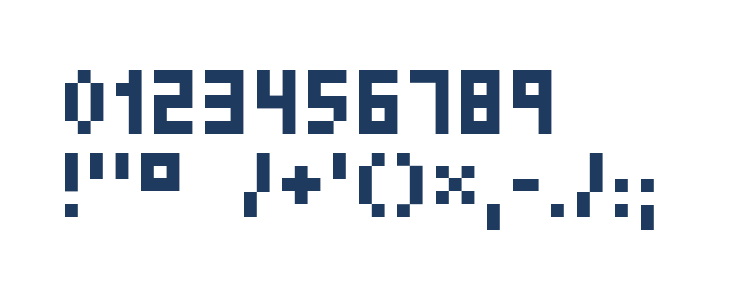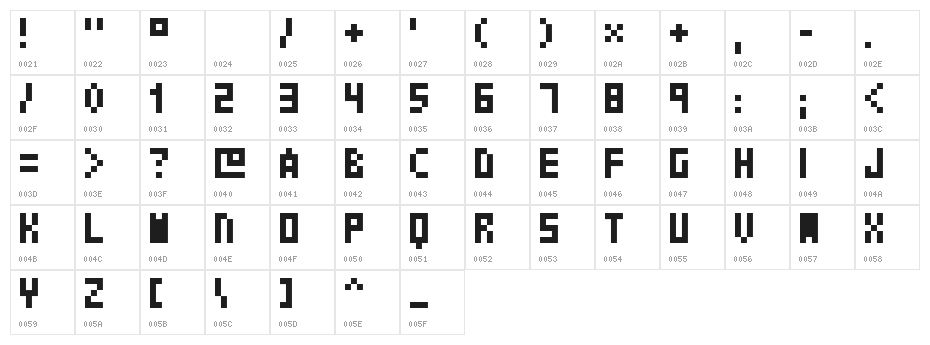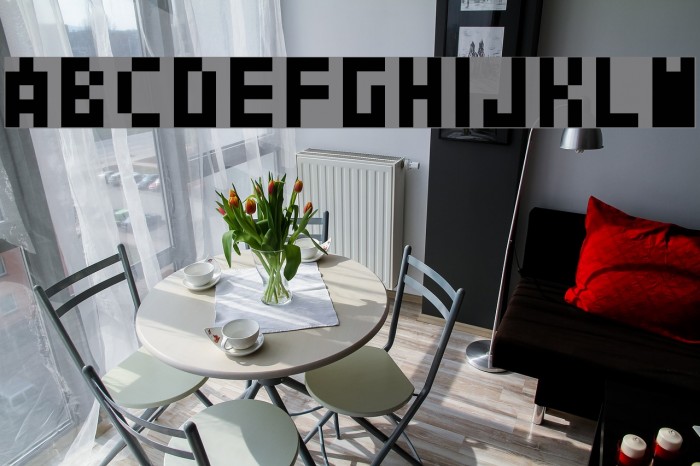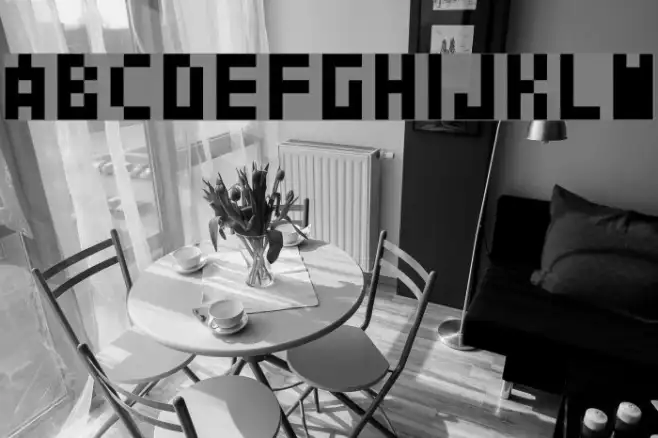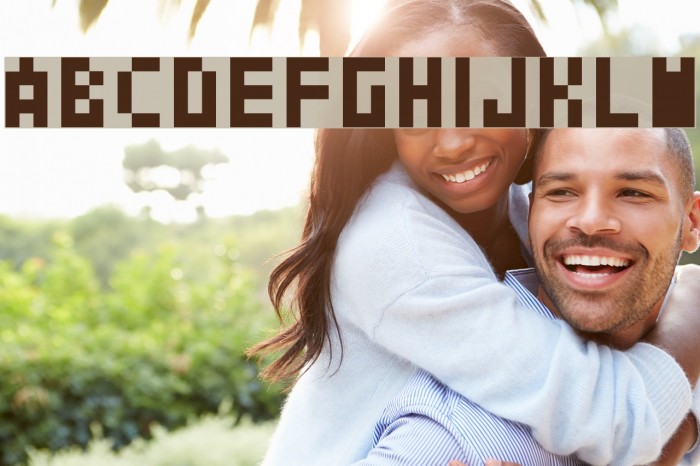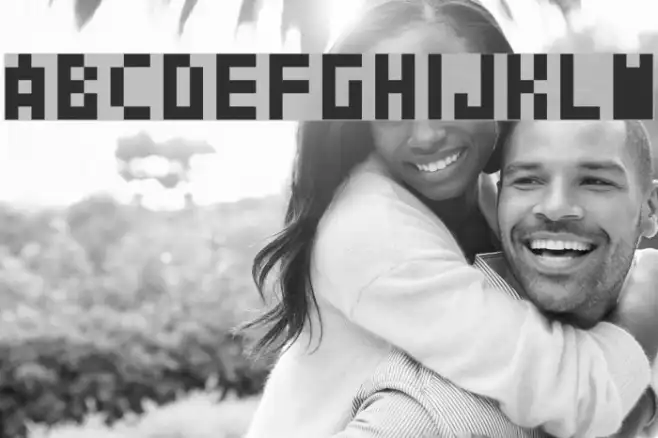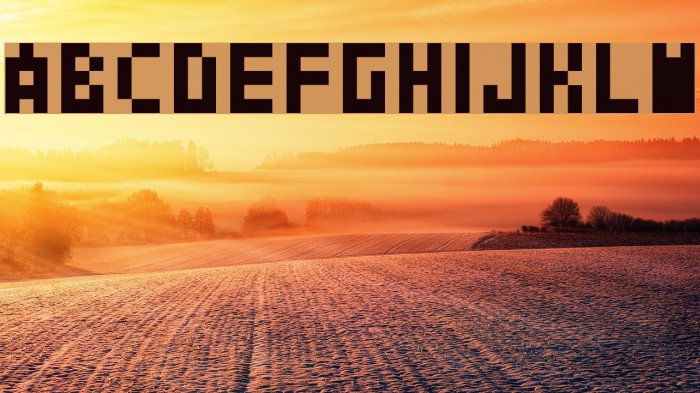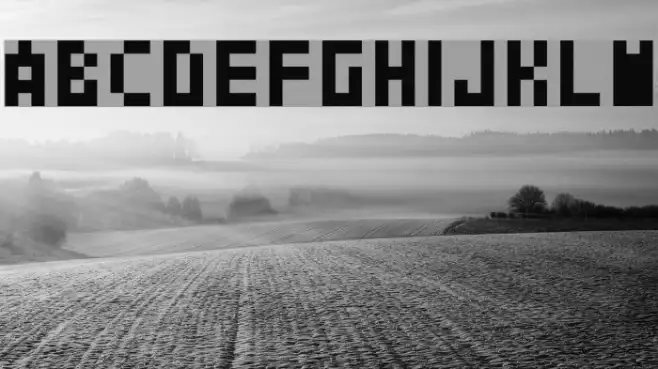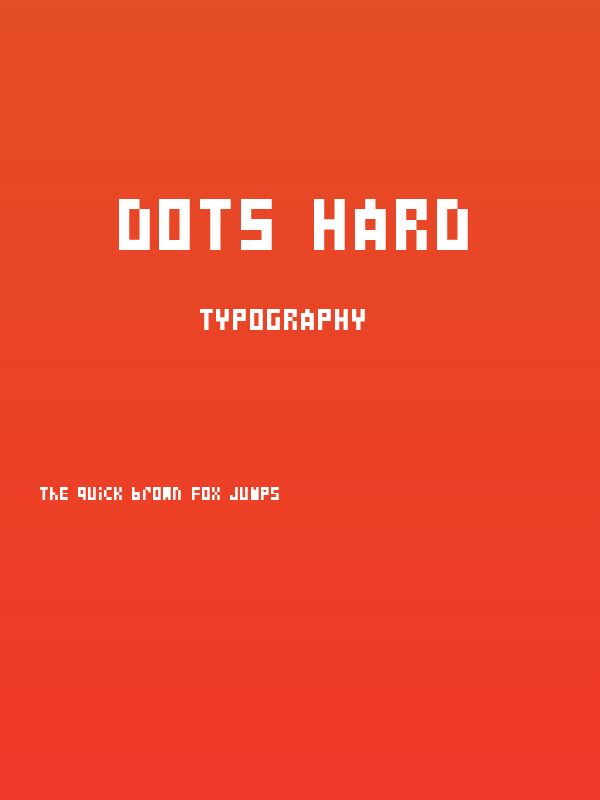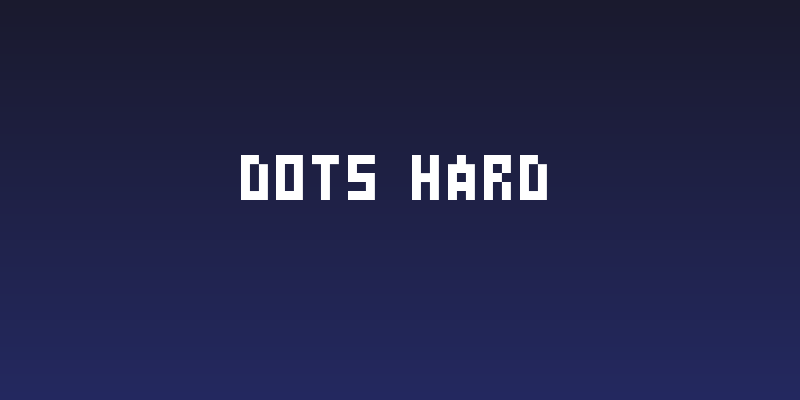
dots Hard Font
dots Hard Description
This font features a bold, geometric design with a pixelated, block-like appearance. Each character is constructed from a grid of squares, giving it a digital, retro feel reminiscent of early computer graphics or video game typography. The uniformity in stroke width across all characters contributes to a cohesive and structured look. The uppercase and lowercase letters maintain a consistent height, enhancing readability while preserving the font's unique style. Numbers and special characters follow the same design principles, ensuring a harmonious overall appearance.
| Proposed Projects | Ideal for video game design, tech-themed posters, digital art projects, and retro-style branding. |